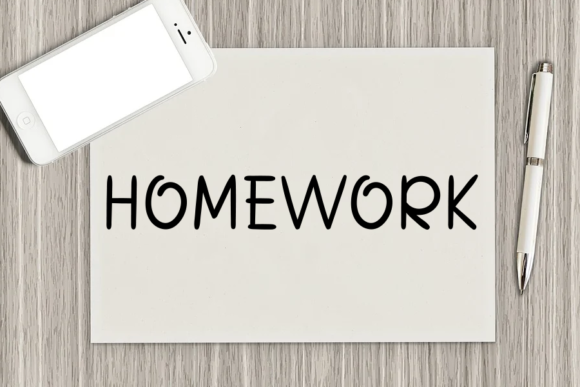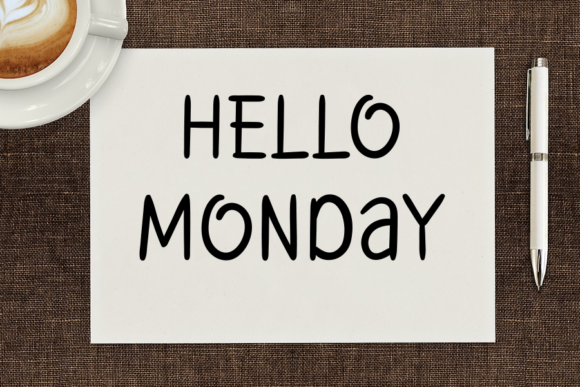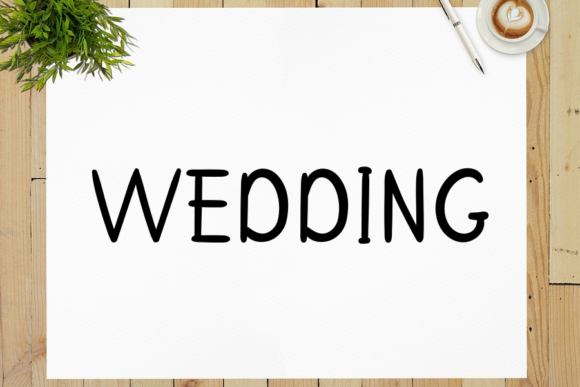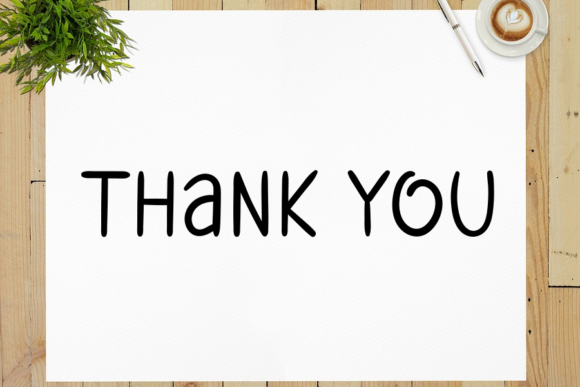
Winter is Coming Font
About Winter is Coming Font
Winter is Coming is a simple, adaptable and friendly handwritten font. No matter the topic, this font will be an incredibly asset to your fonts’ library, as it has the potential to elevate any creation.